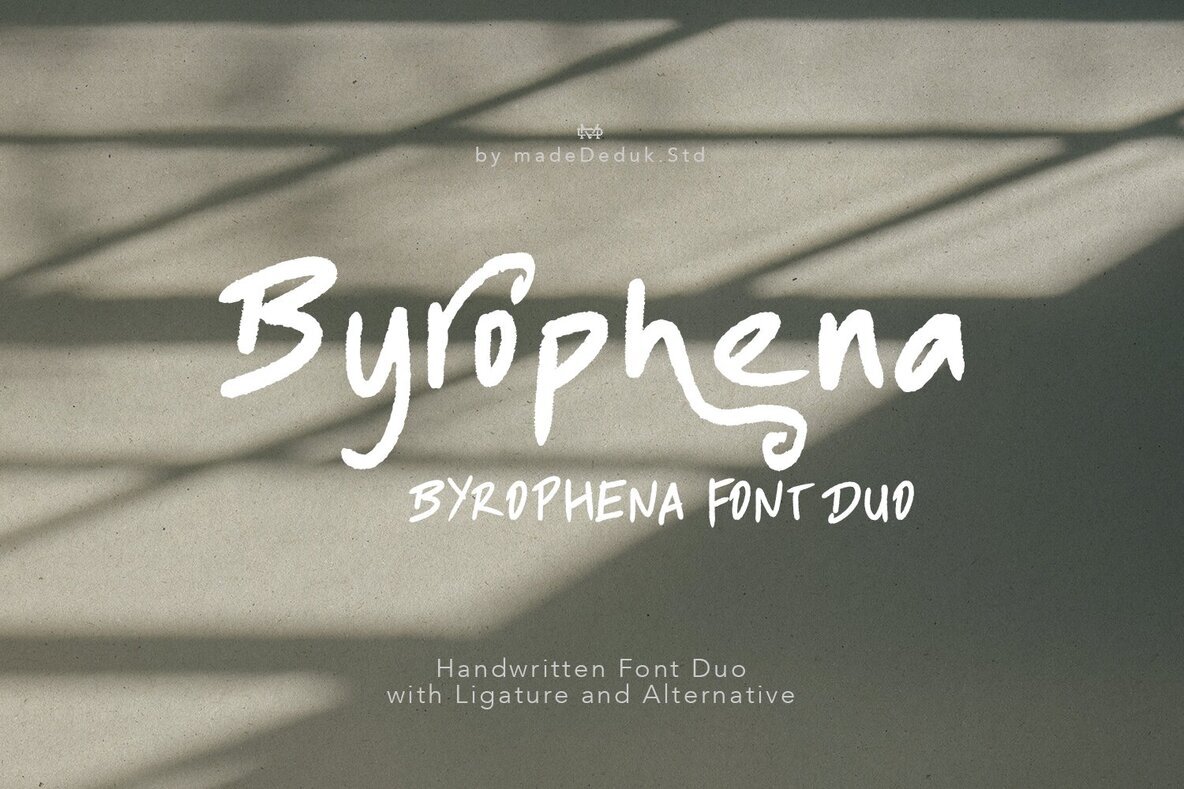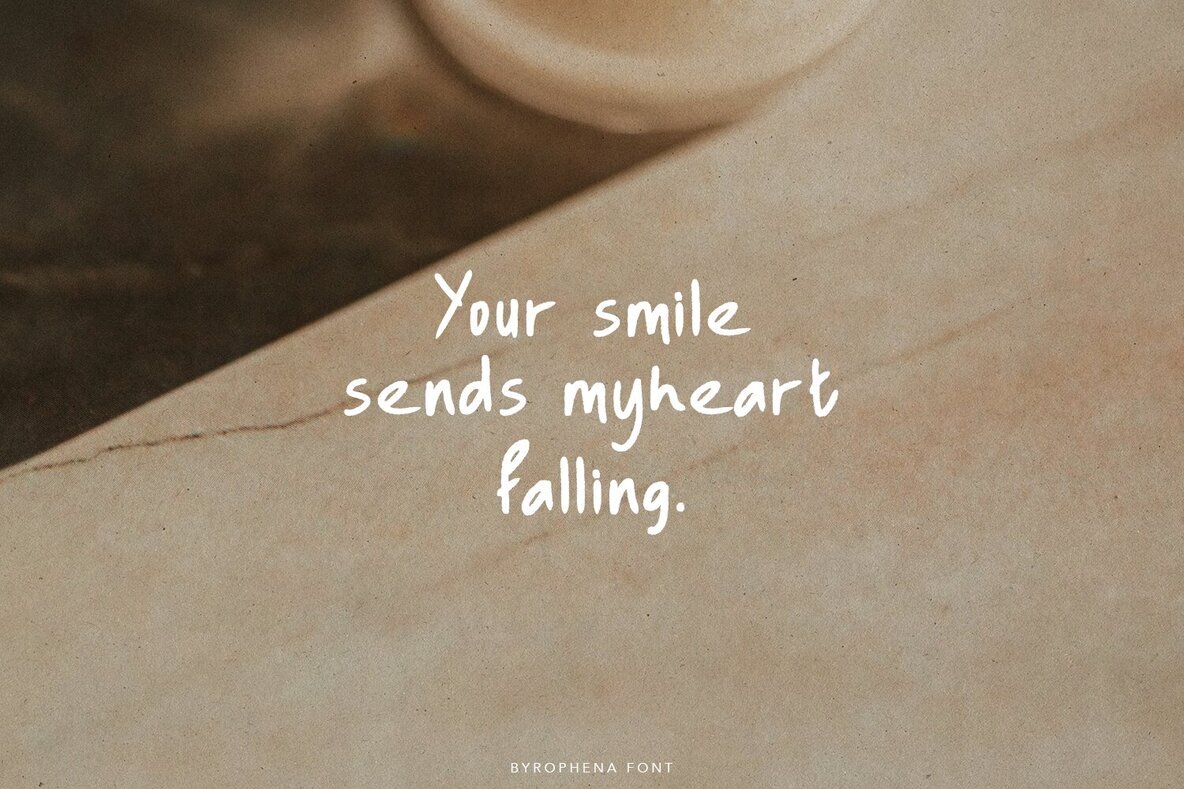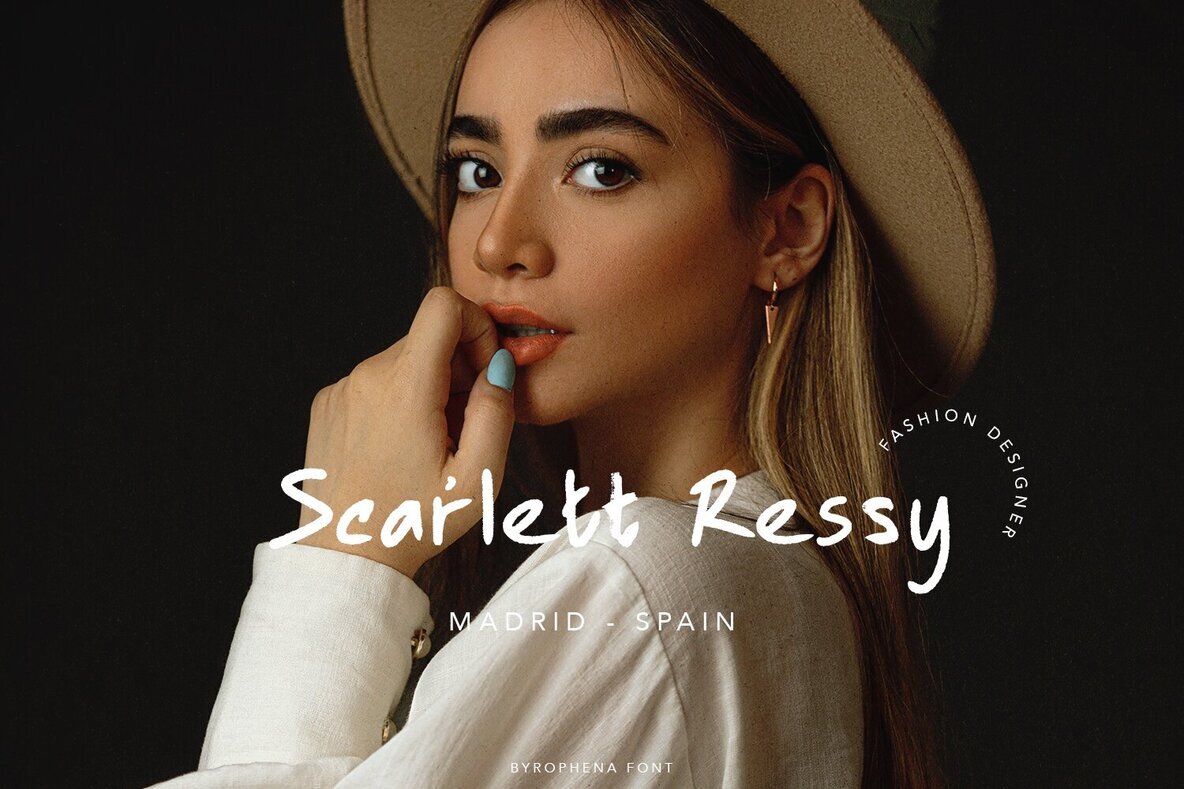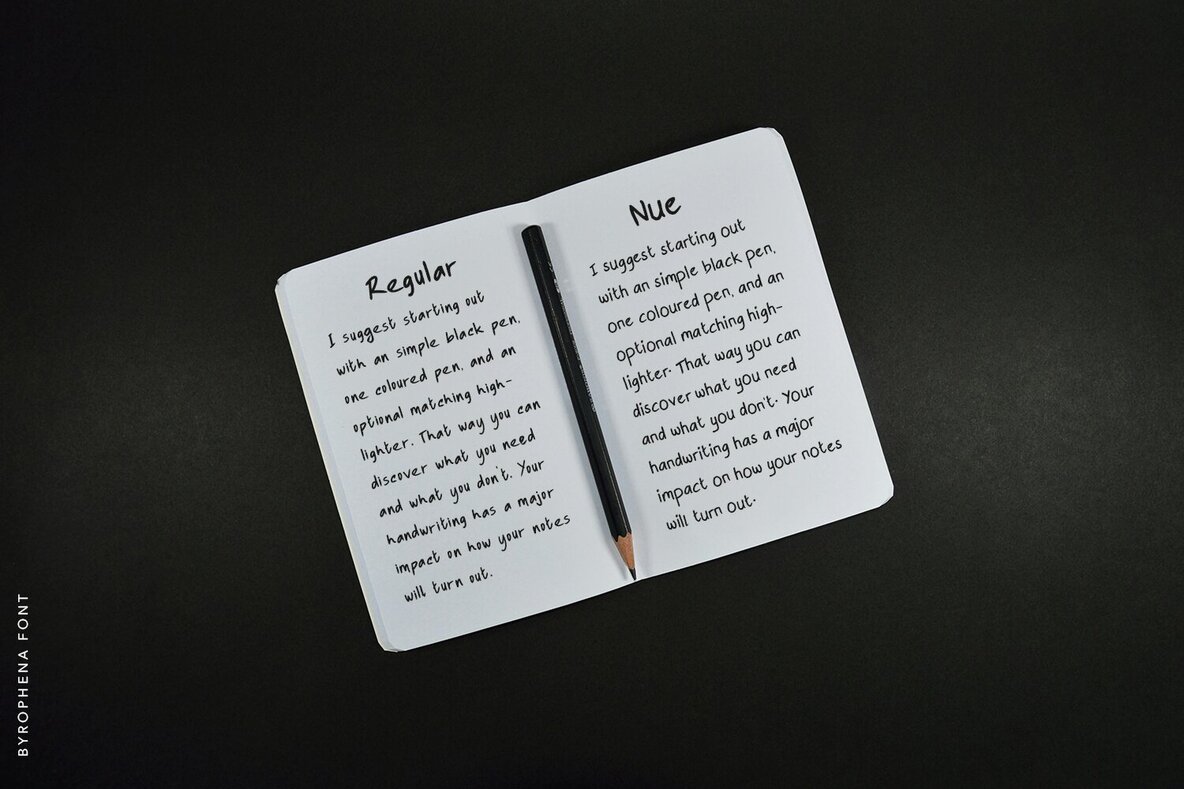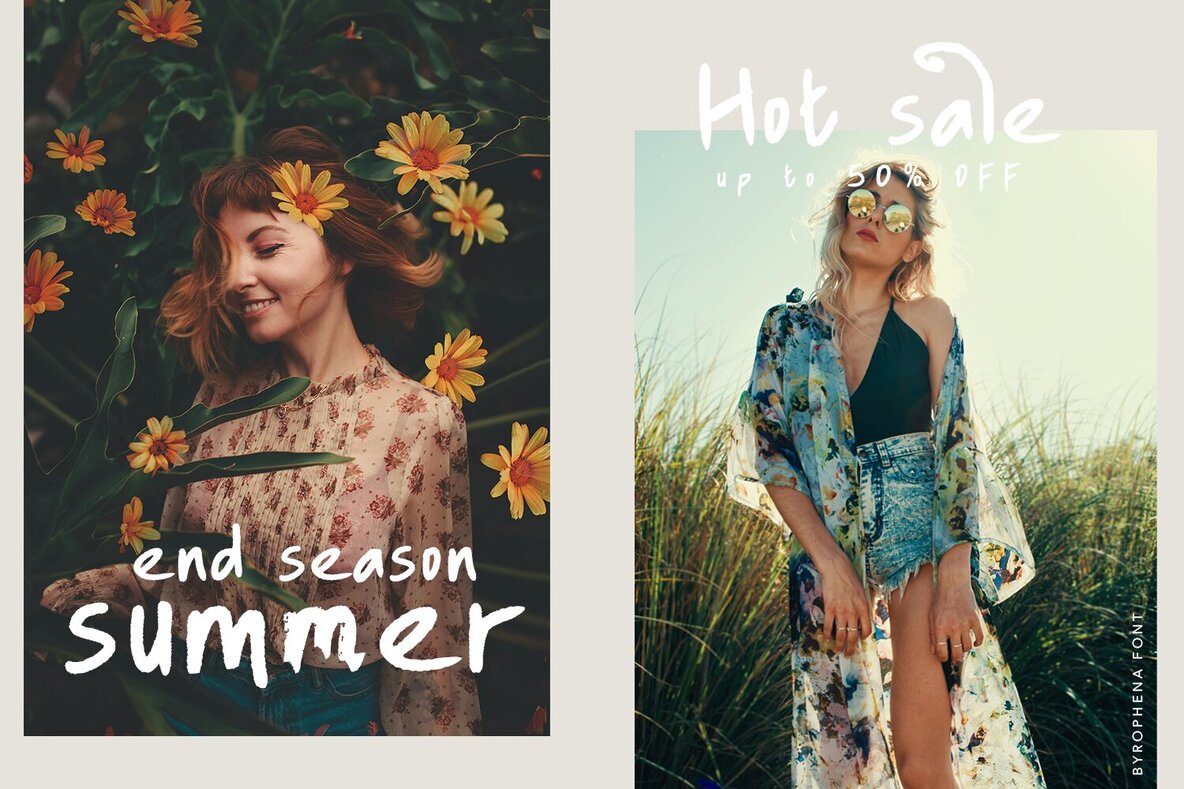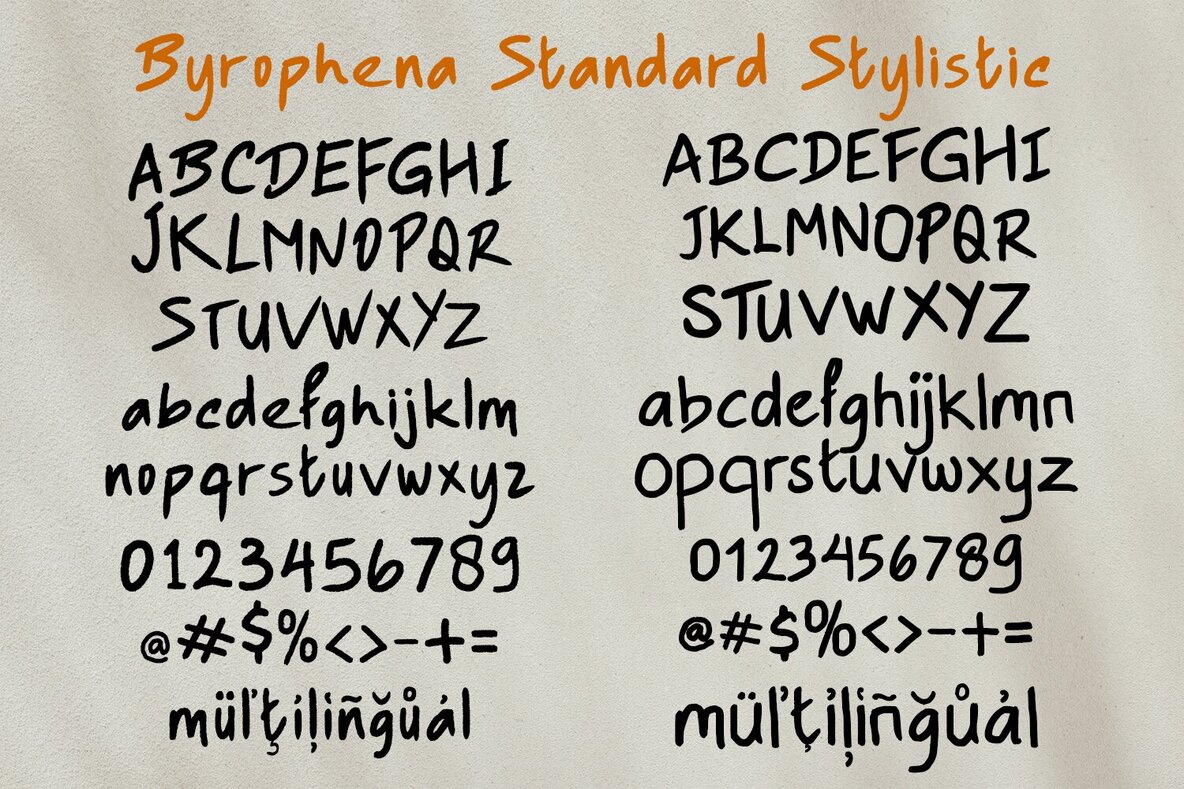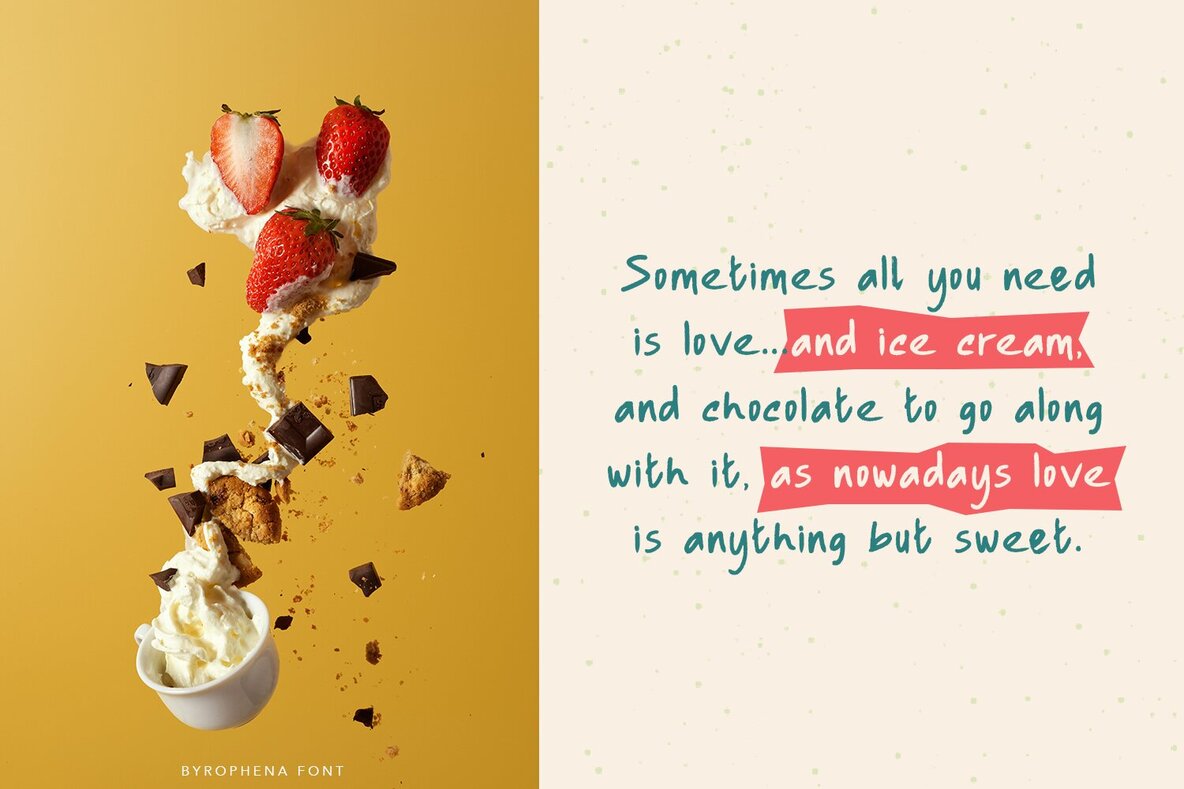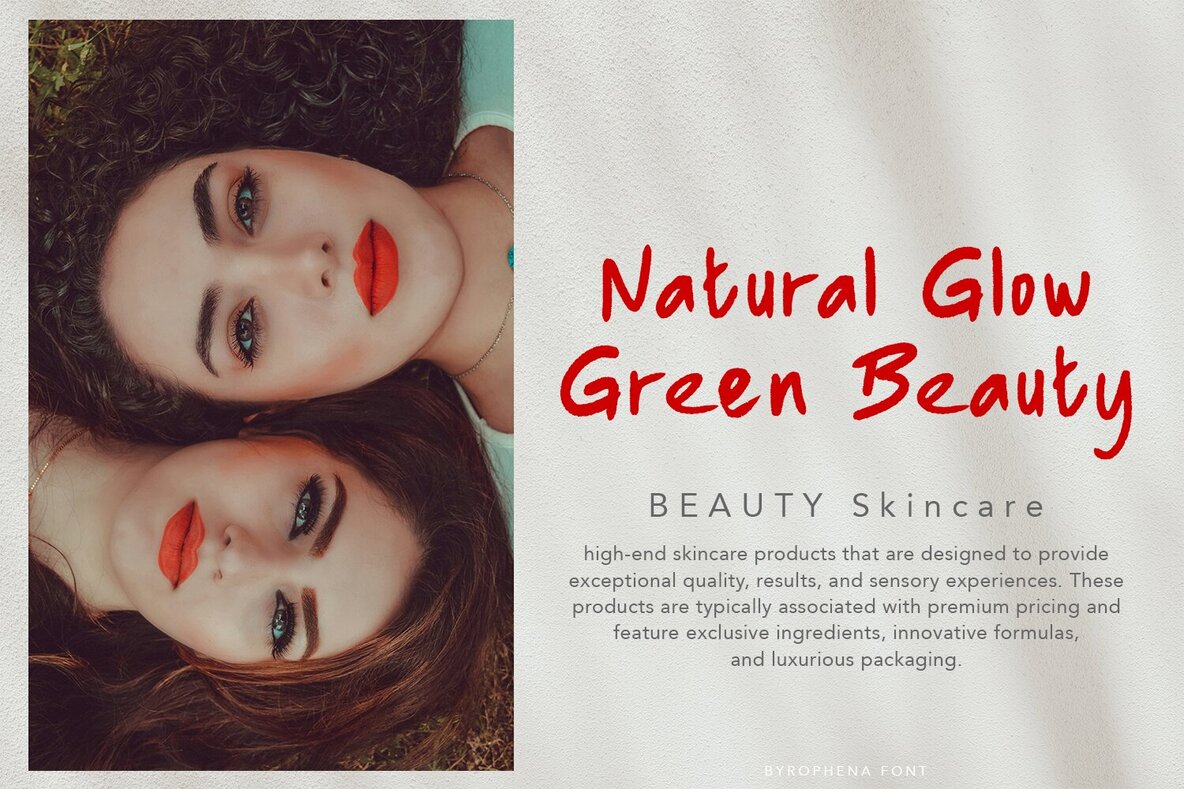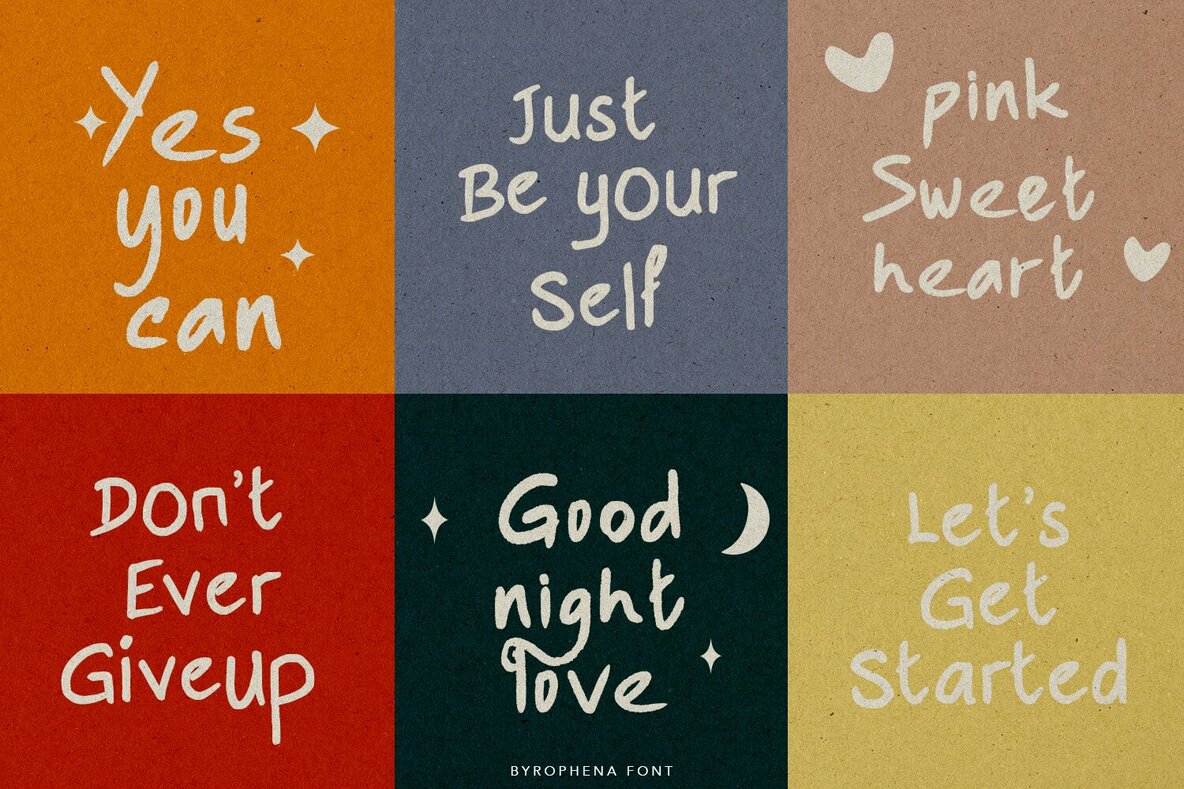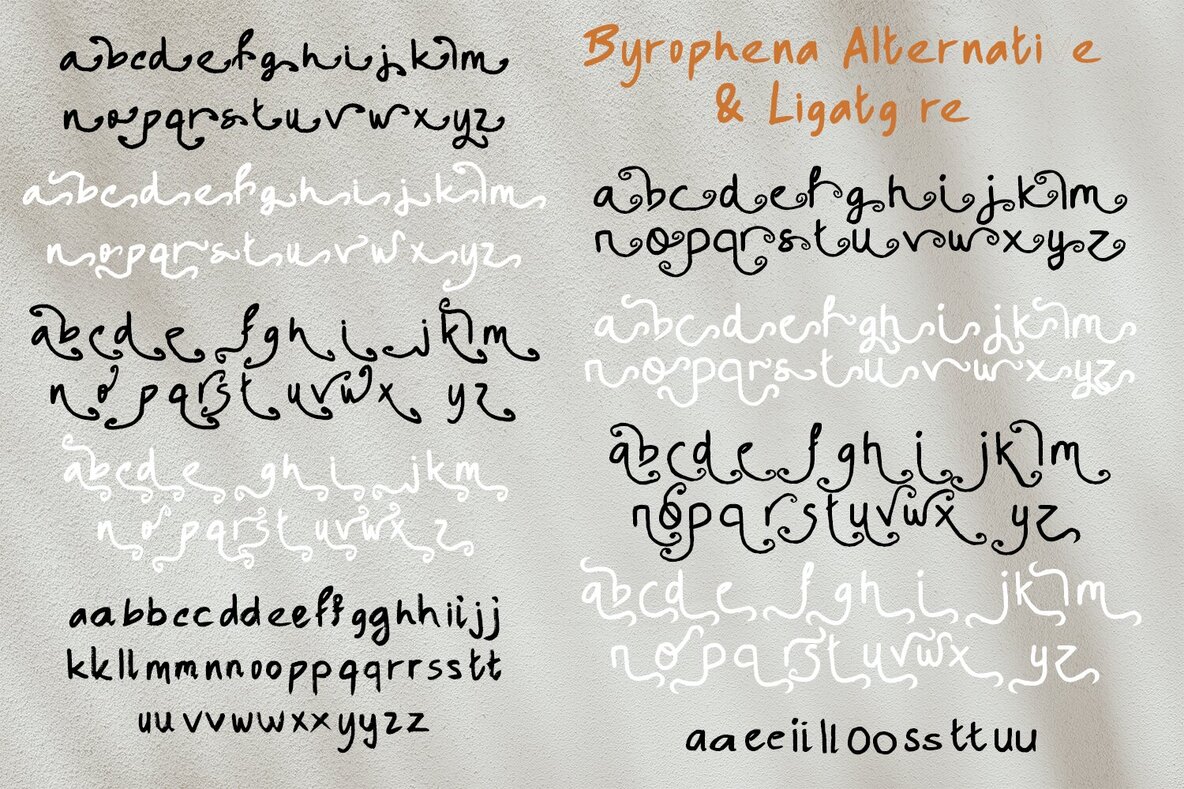
Byrophena Font
Discover Byrophena, a charming brush handwritten font duo that brings a touch of authenticity and flair to your creative projects. With Byrophena and Byrophena Nue, you gain access to over 50 ligatures, ensuring each creation retains a natural, handmade appearance. Ideal for a variety of applications, this font duo is your go-to choice for making a distinctive impact in numerous visual projects.Effortless Elegance with Byrophena Font Duo
Perfect Applications